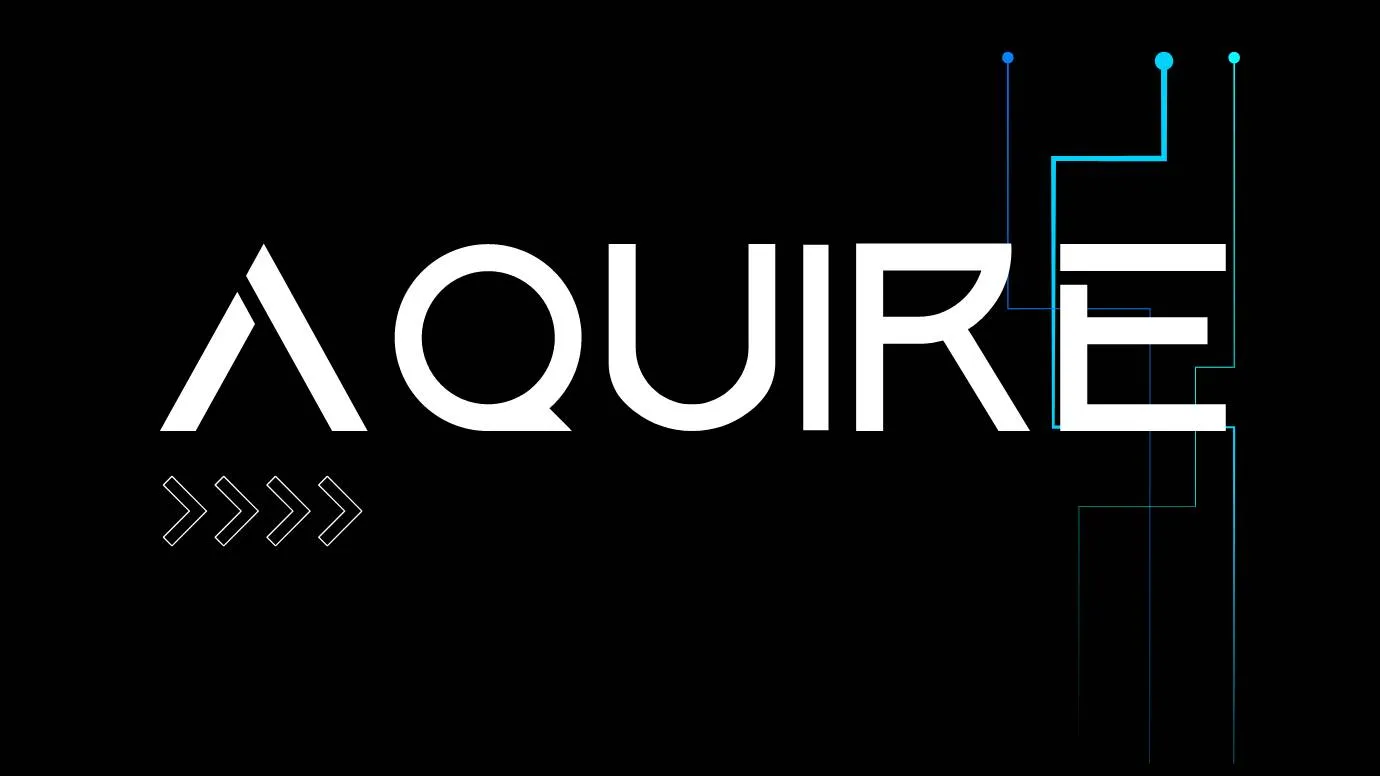
Aquire comes in the display type family. This gorgeous font family has three weights including bold, light, and regular. Sesohq is the designer of this amazing look typeface.
This font family is specially used in CSS and other designing languages. Due to its multiple features and luxurious look, many fonts are available for making pairing with this typeface such as agker font.
Aquire Font